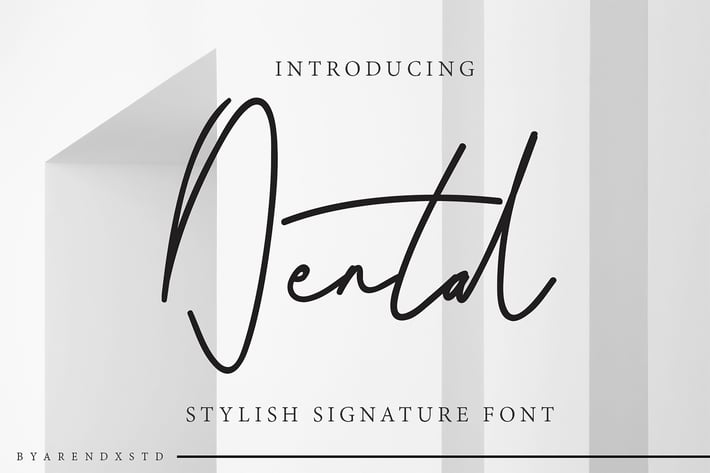
Dental Signature Font
Introducing our newest Dental Stylish Signature Font .
Dental Signature font is made as elegant as possible for the use of your design project
Dental offers a variety of design projects, including logos & amps, branding, wedding designs, social media posts, advertisements, product designs, magazines and more.
Dental Signature font is made as elegant as possible for the use of your design project
Dental offers a variety of design projects, including logos & amps, branding, wedding designs, social media posts, advertisements, product designs, magazines and more.